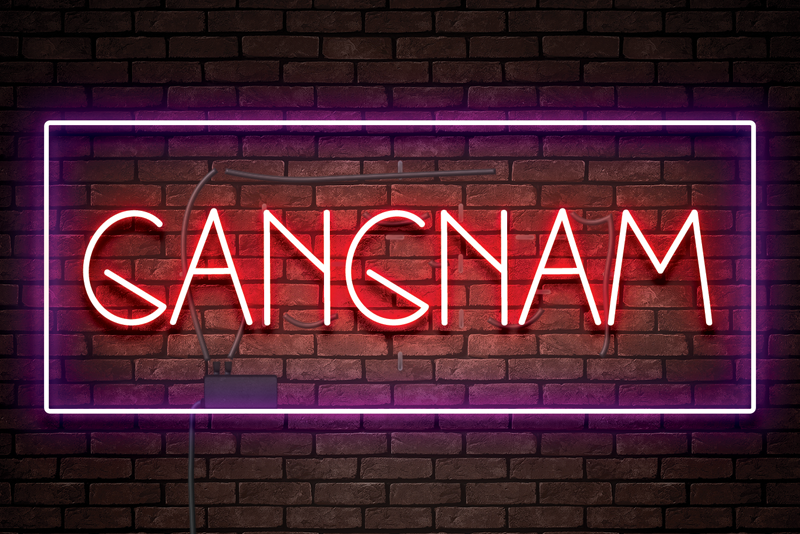
Gangnam is a thin and tall sans serif font. It can easily be matched to various projects, so add it to your most creative ideas and notice how it makes them stand out and come alive! Attention : Gangnam sans serif font is prohibited to use this font for commercial purposes or for profit without the permission of the author/admin, without being known to use this font without permission, will be subject to sanctions 5x the specified price. This font is used only for demos (Demo license) If you want to use this font for commercial use please contact email: erikluluk0@gmail.com or click the link below: https://www.creativefabrica.com/product/gangnam/ref/745146/ If you want to see more other fonts, please click:https://www.creativefabrica.com/designer/erik-studio/ref/745146/ Any donations are very appreciated. Paypal account for donation: https://paypal.me/eriksupriyant thanks. |